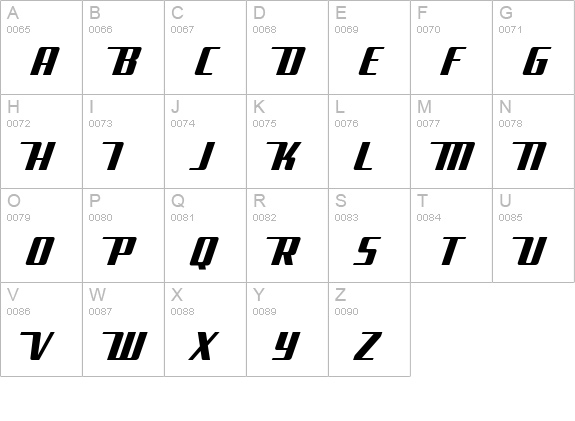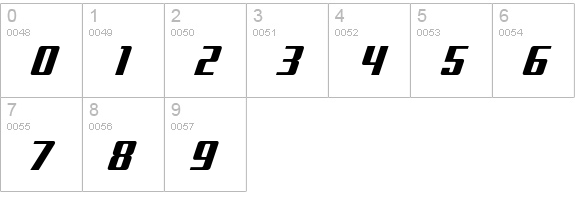
Global-SpeedCaps font is a modern and stylish typeface that exudes a sense of speed and dynamism. With its sleek design and bold strokes, this font is perfect for projects that require a strong and impactful visual presence. The uppercase letters are sharp and eye-catching, making them ideal for headlines, logos, and branding materials. One of the best things about Global-SpeedCaps font is that it is available for free download at FontsMarket.com. This means that you can easily access and use this font for your personal and commercial projects without any cost. Whether you need to add a touch of energy to your designs or create a striking visual identity, Global-SpeedCaps font is sure to make a powerful statement. Download it today and give your projects a speed boost!